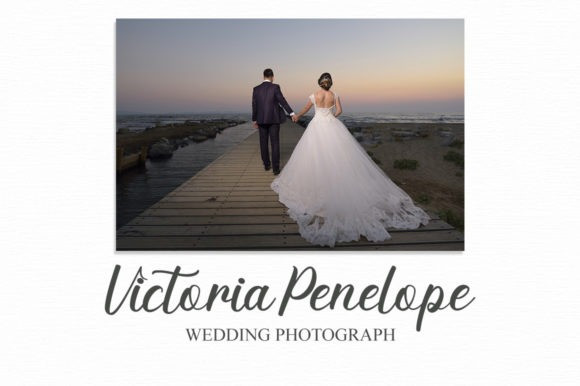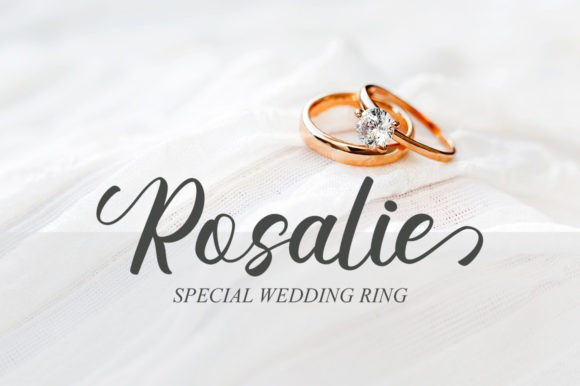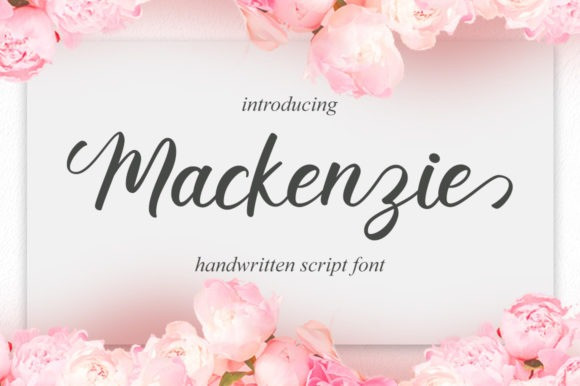
Mackenzie Font
Mackenzie Font is a lovely and timeless handwritten font. It is the best choice for creating eye-catching logos, branding, and quotes. Every letter has a unique and beautiful touch that will make your design come alive!